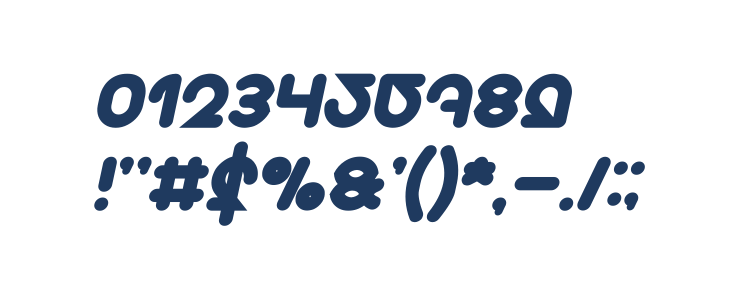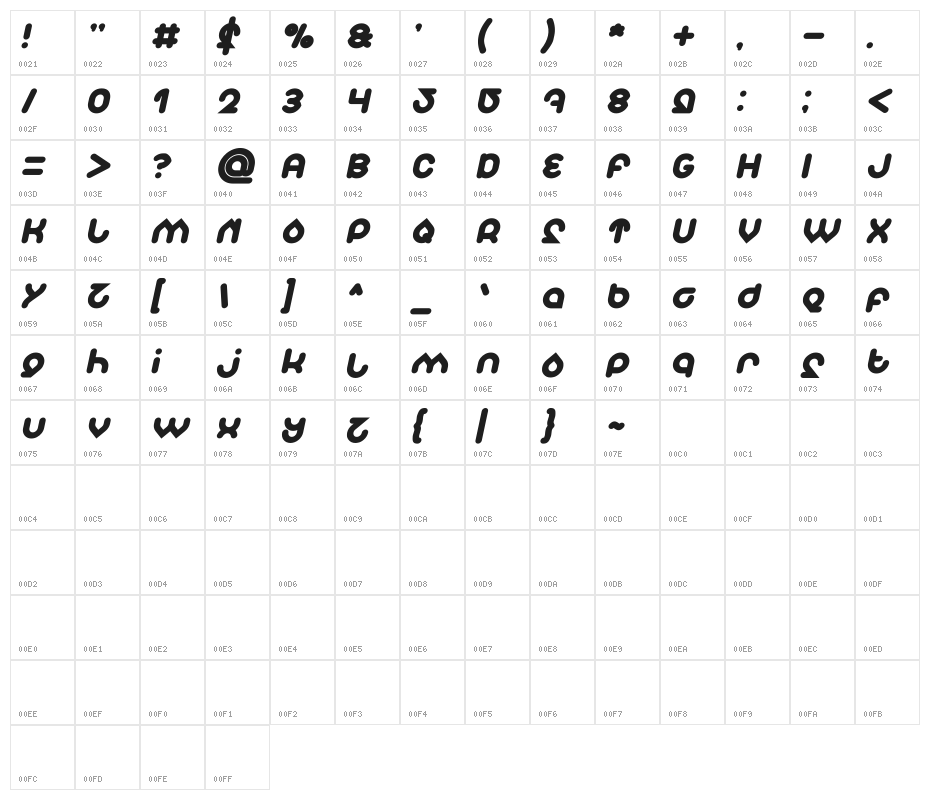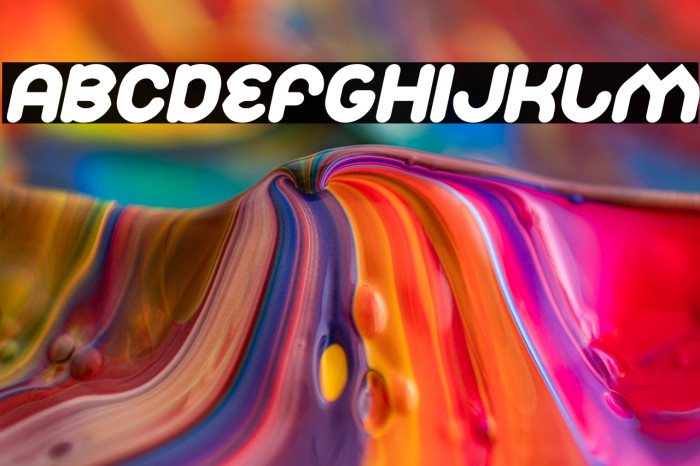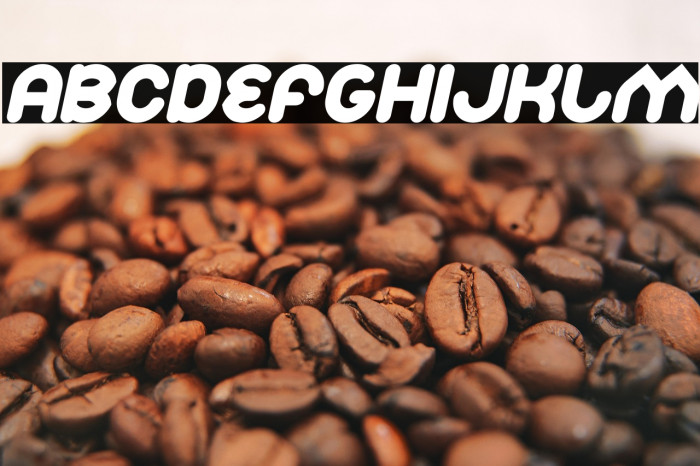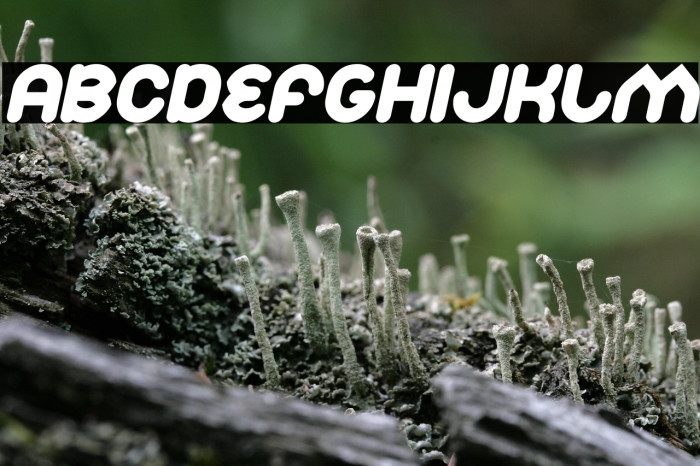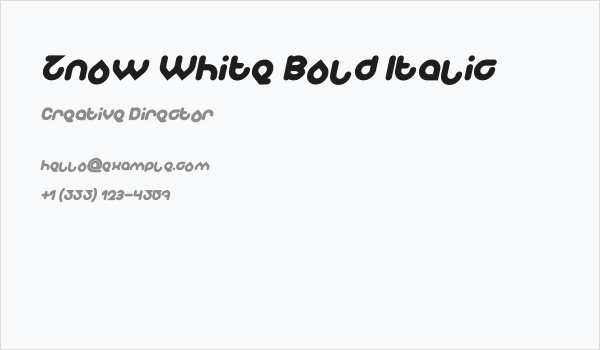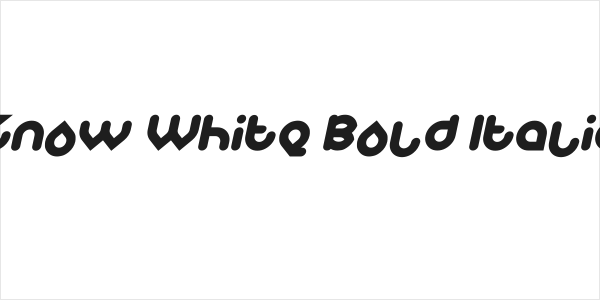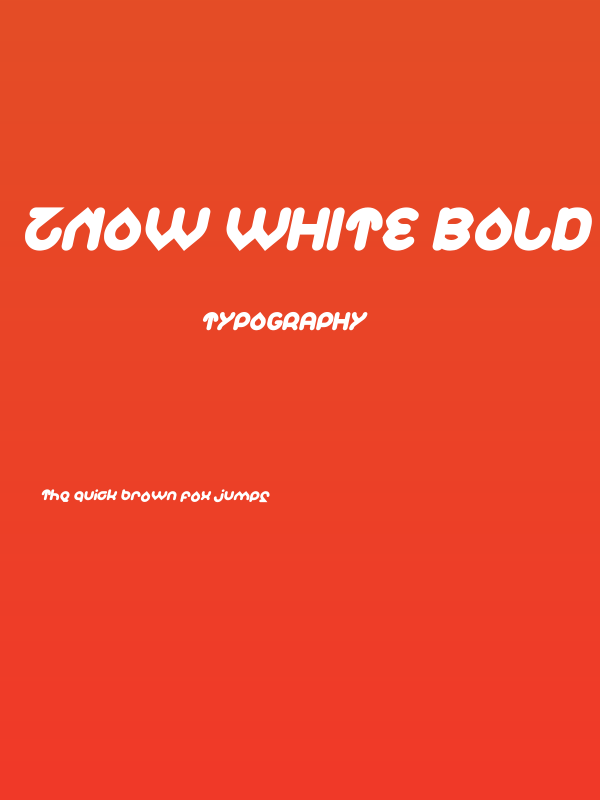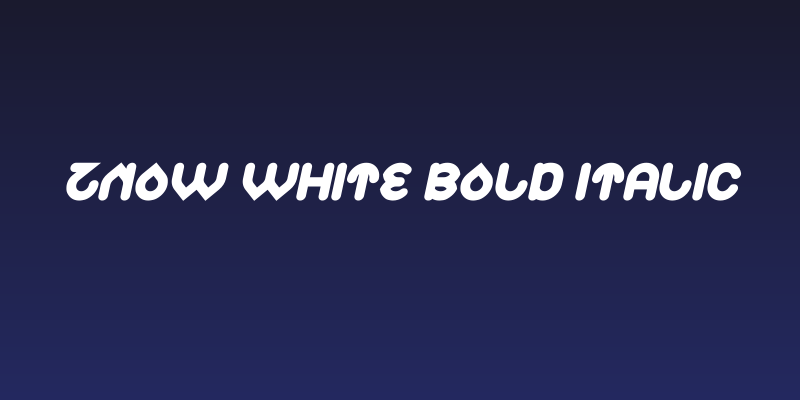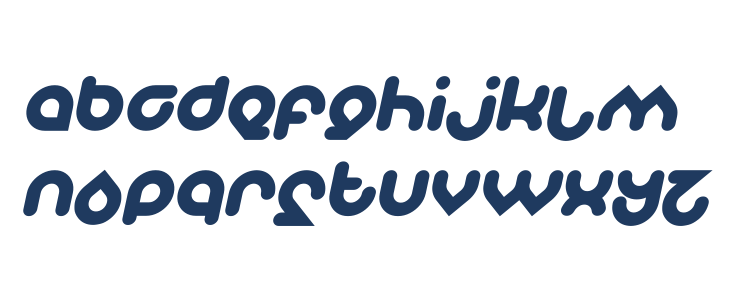
Znow White Bold Italic Font
Znow White Bold Italic Description
This font exhibits a bold and playful style with a distinctive italic slant. The characters are rounded and thick, giving a sense of friendliness and approachability. The uppercase and lowercase letters maintain a consistent weight, while the numbers and special characters are designed to match the overall aesthetic. The font's unique curves and angles create a dynamic appearance, making it suitable for eye-catching designs. Its bold nature ensures high visibility, while the italic slant adds a touch of movement and energy.
| Overall Style | Playful, Modern |
| Proposed Projects | Ideal for children's books, playful branding, posters, and creative advertising. |